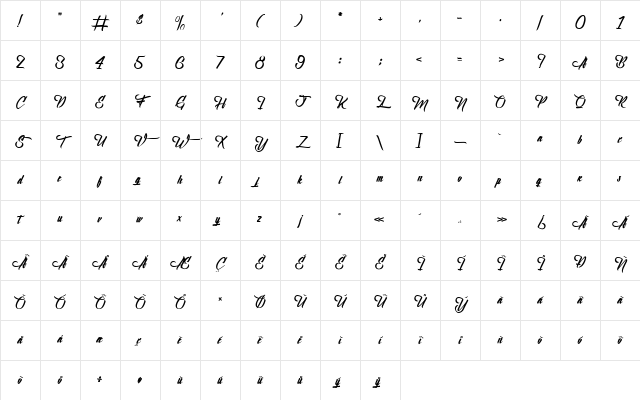
Complete Birth of the Furious Regular glyph index. Displaying only characters natively supported by Birth of the Furious Regular font.
Birth of the Furious is a composed and adaptable typeface that performs quietly and consistently across a wide range of design contexts.
Pro Tip: Use Birth of the Furious in both headline and body roles to test its range before committing to a single application.